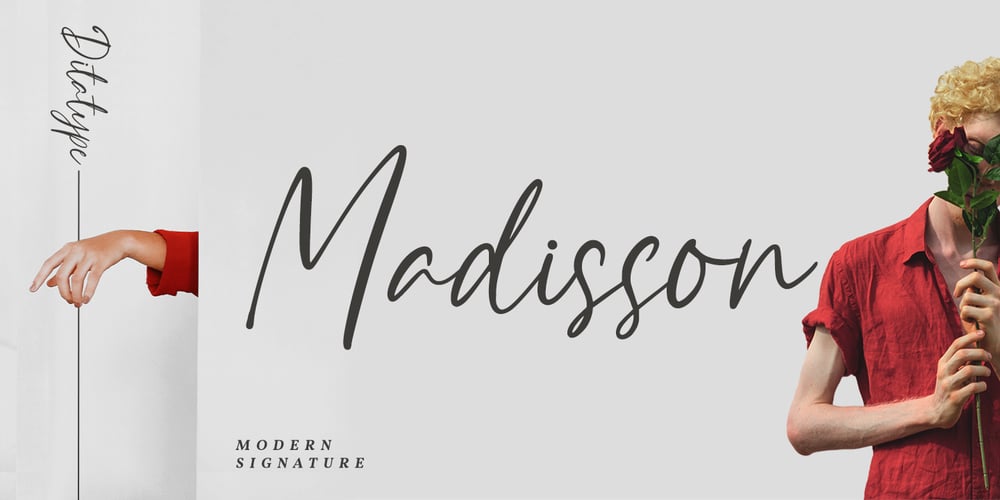
Madisson
Madisson font
Madisson Font Family was designed by Donis Miftahudin and published by Ditatype. Madisson contains 1 styles and family package options. Madisson is a modern signature font. With a classy and natural style, it brings a classy and chic typeface. Madisson best used for weddings, branding, logotype, invitation, and quotes.Features: – Beautiful Ligatures – PUA Encoded – Multilingual Support – Numerals and Punctuation